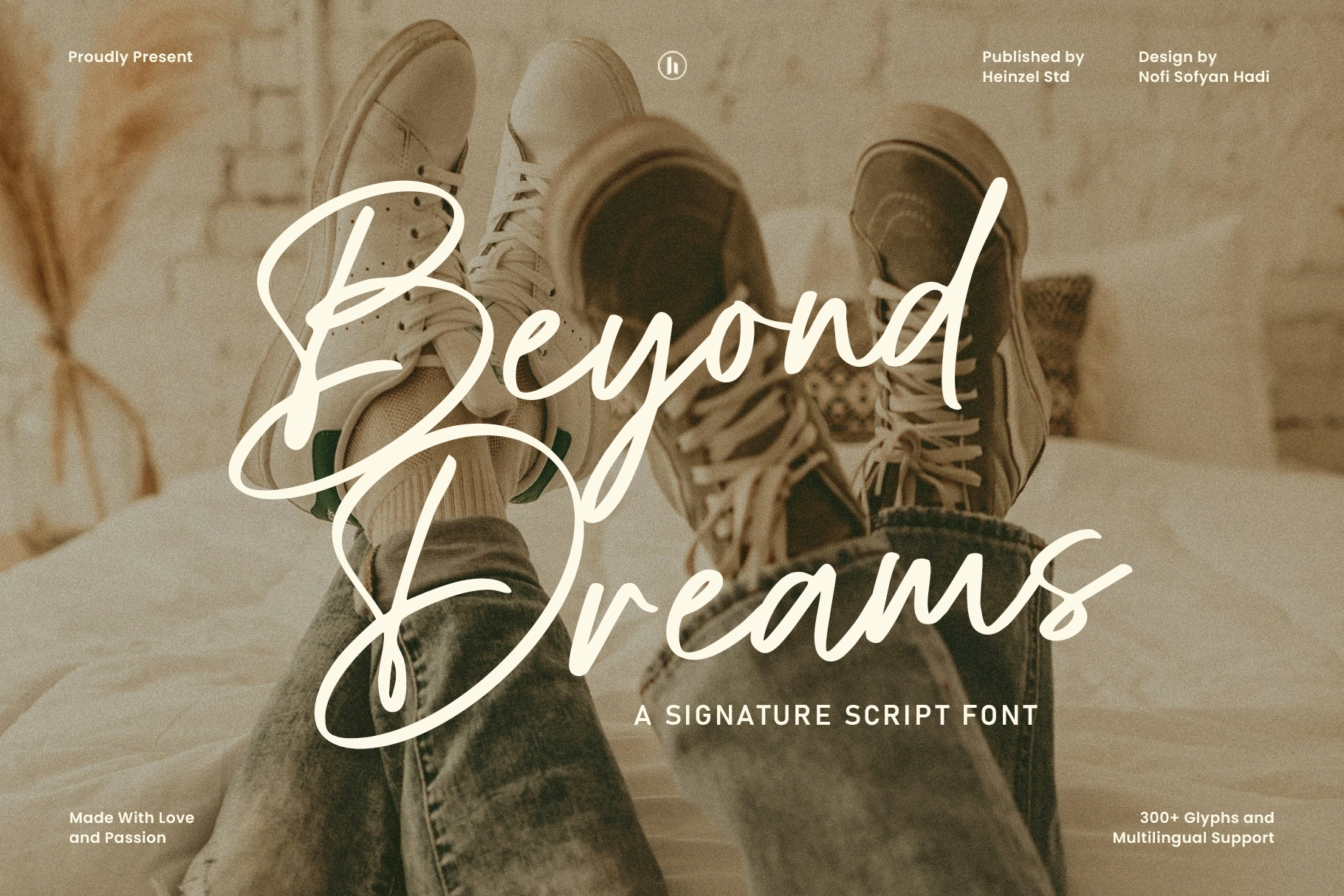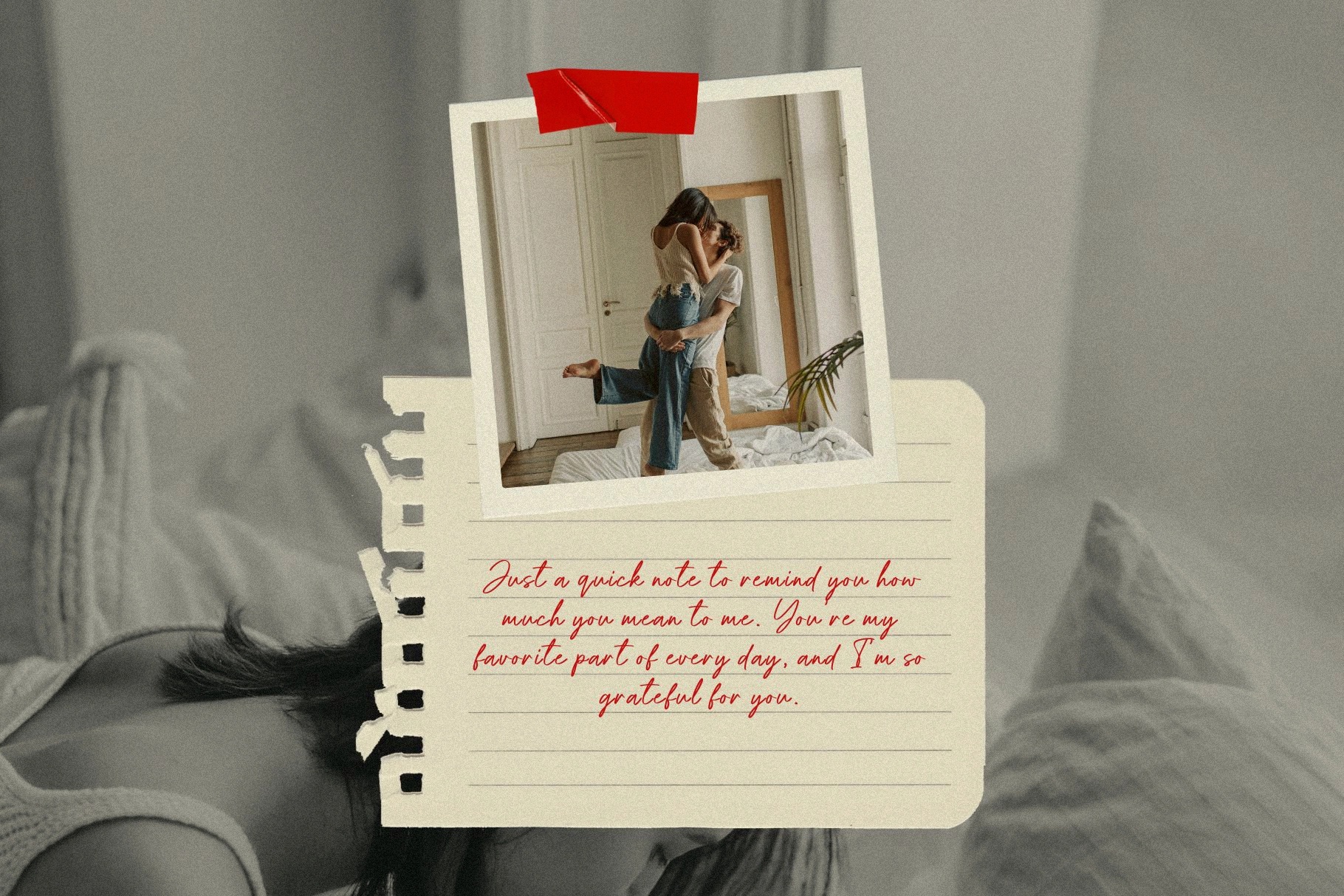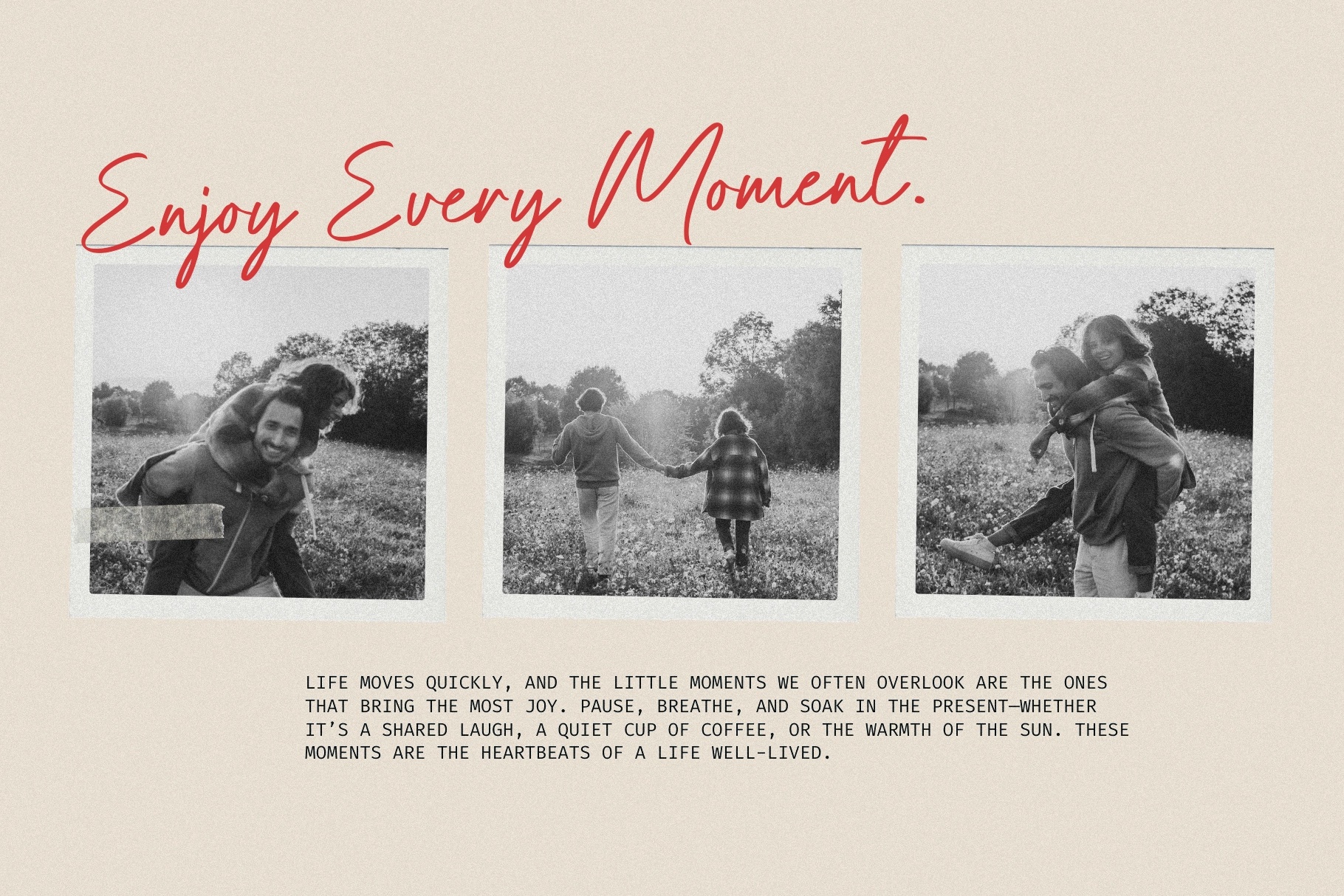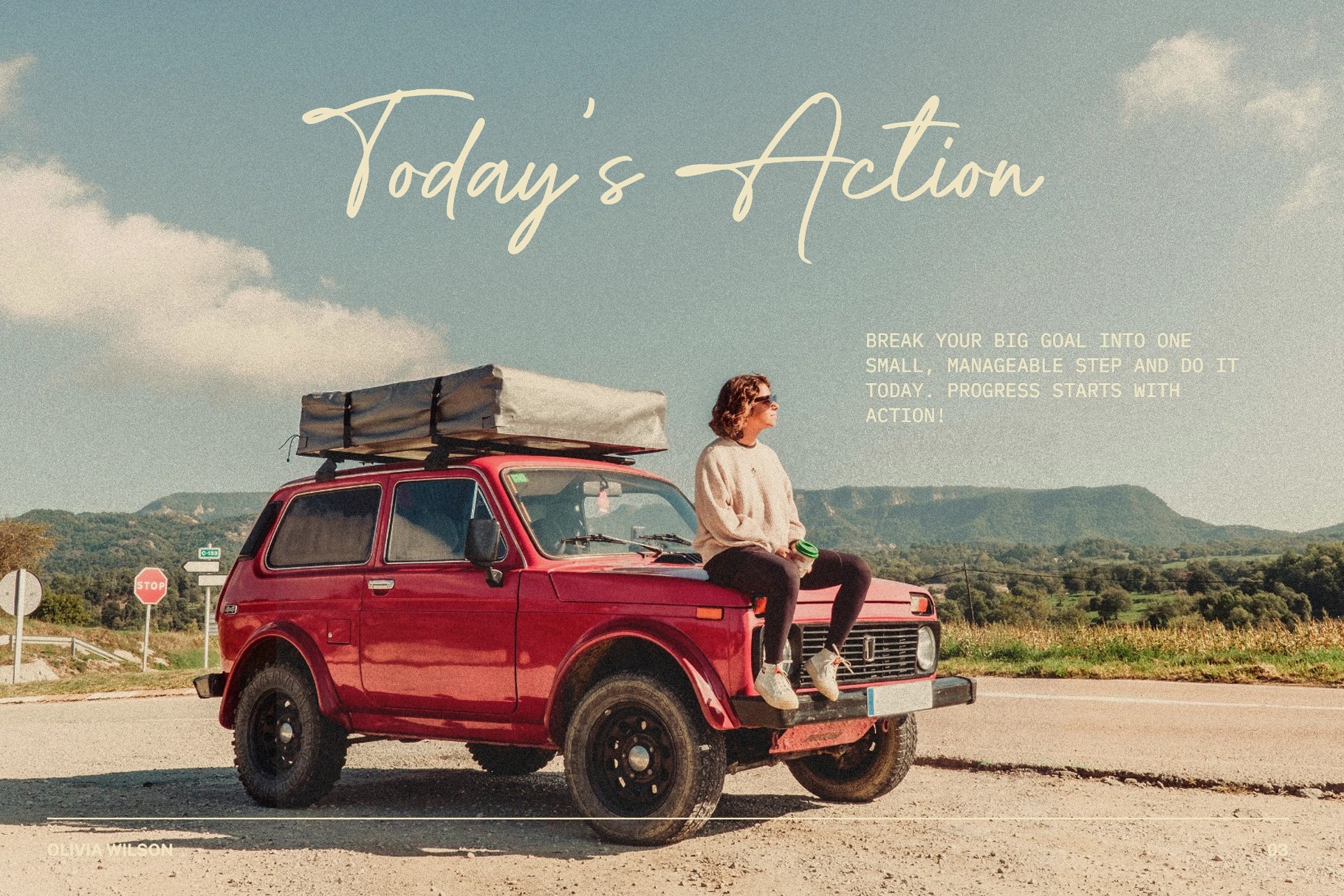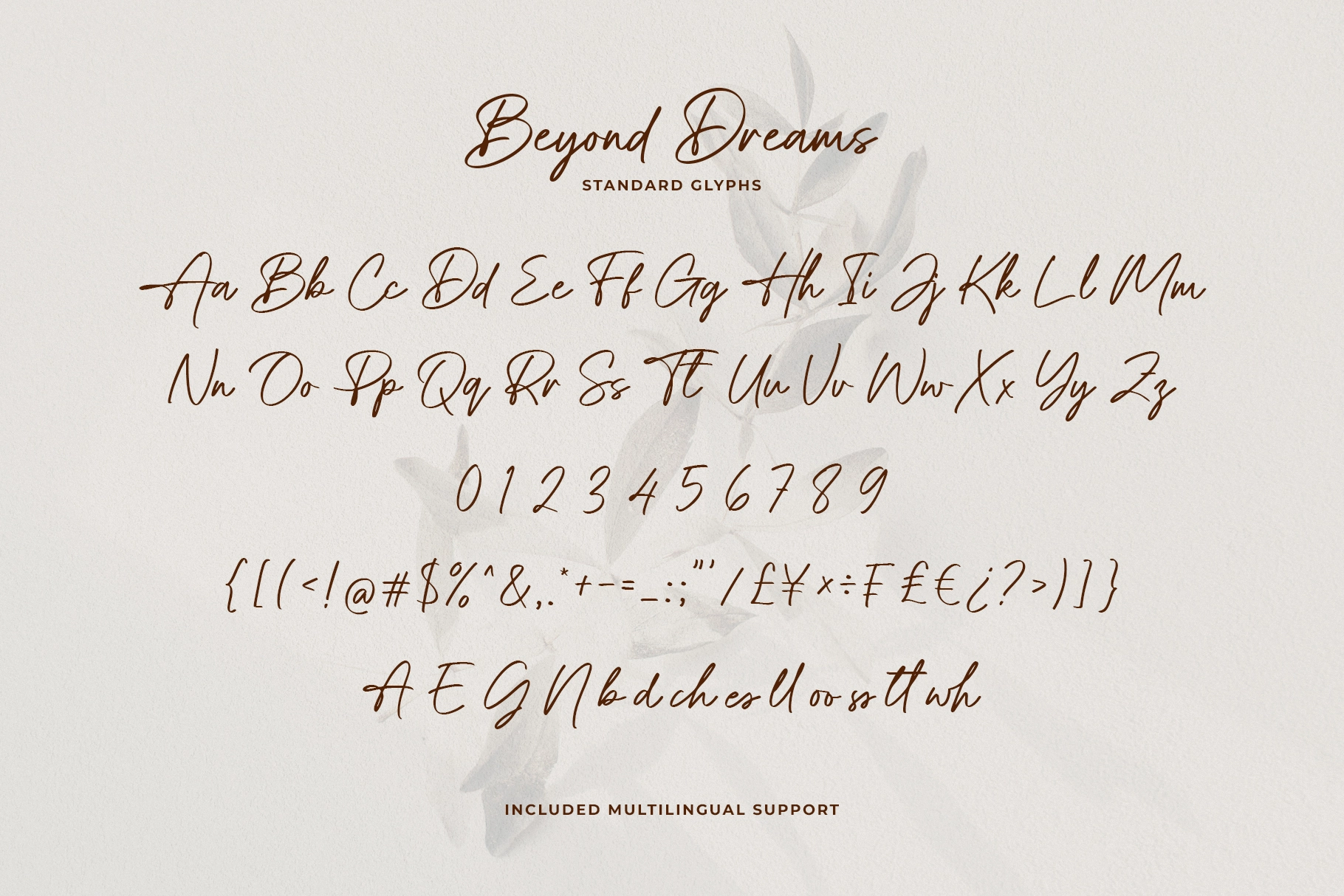
Beyond Dreams - Signature Script Font
Beyond Dreams is a signature script font built on loose, cursive momentum. It reads like a quick signature scrawled at the bottom of a note, not a careful calligraphy exercise. Long connecting strokes swing between letters, and the baseline dips and rises as if the hand never lifted the pen. Alternate letterforms and built-in ligatures step in wherever repeated letters would otherwise collide, so the flow keeps its handwritten logic even in tight combinations.
The exaggerated swing stays legible at small sizes too, so the font holds up in body copy and social captions, not just oversized headlines. Use it for wedding invitations, luxury branding, logo lockups, social media graphics, packaging labels, and photography watermarks.
• Uppercase & lowercase;
• Numerals, punctuation & symbols;
• Alternate letterforms and contextual ligatures for repeated letter pairs;
• Multilingual support;
• 300+ glyphs total